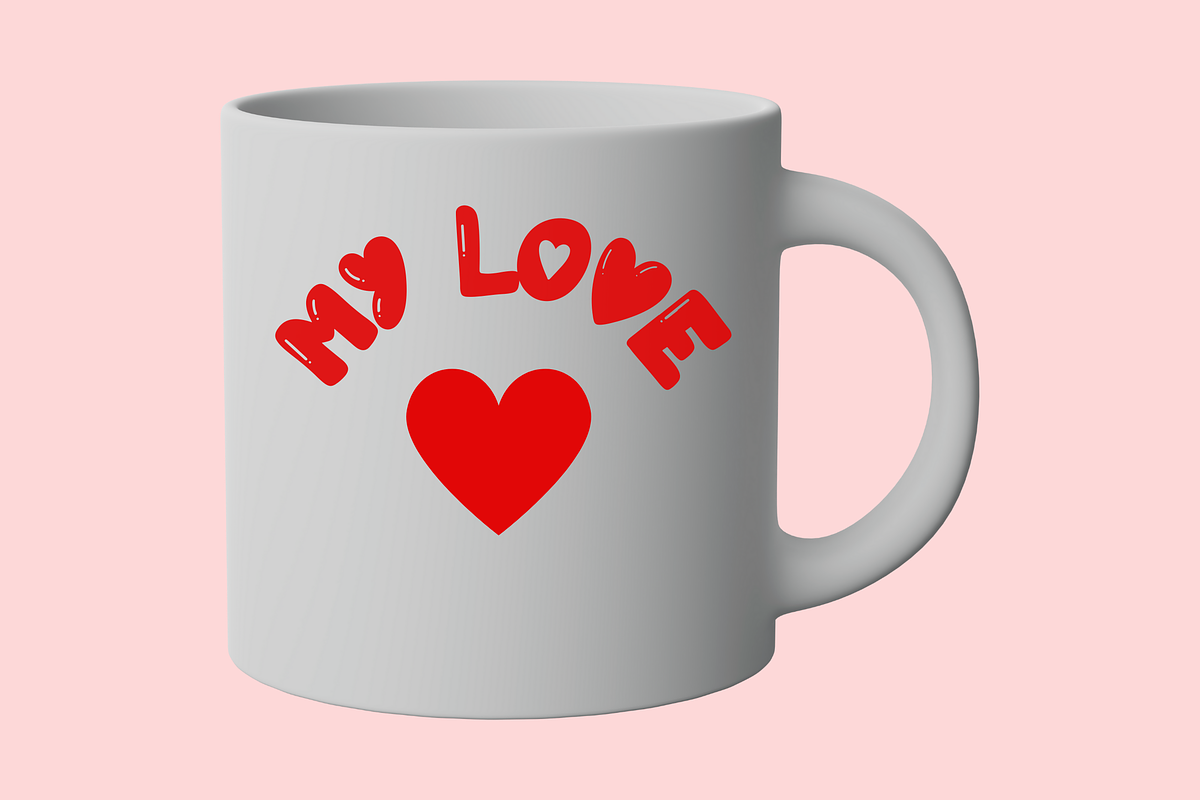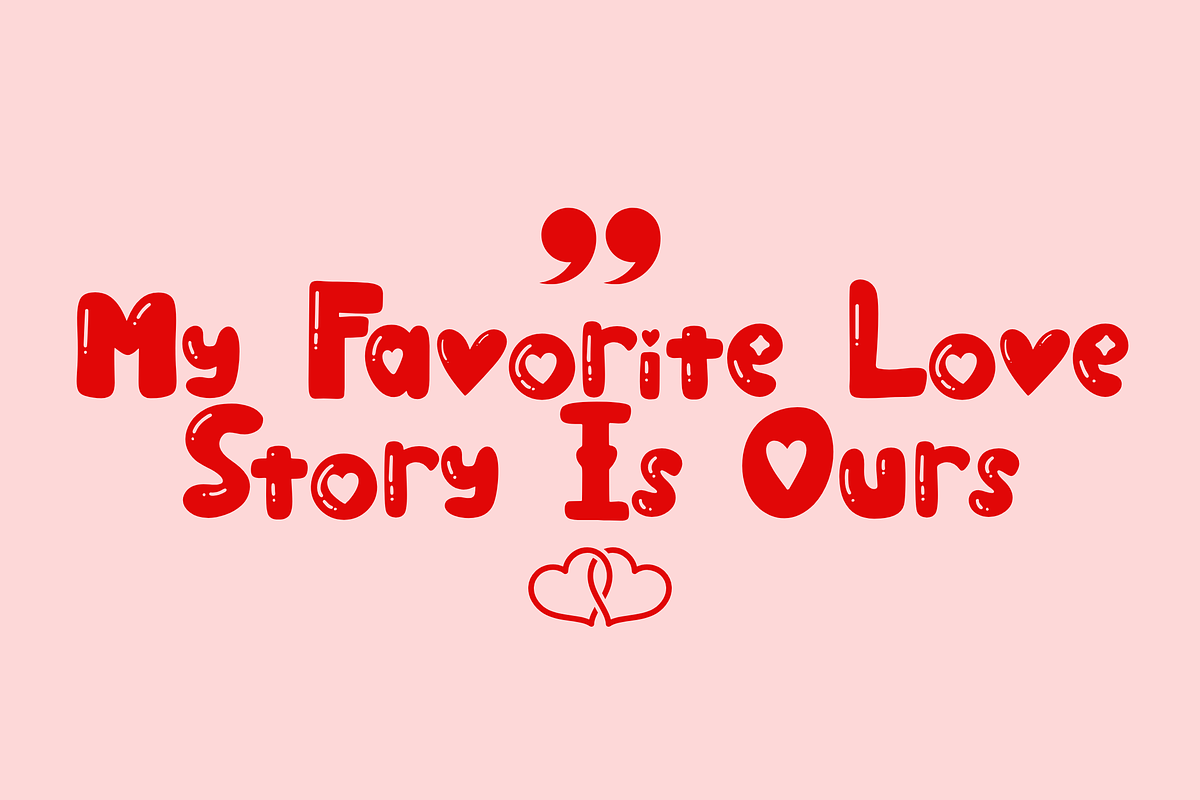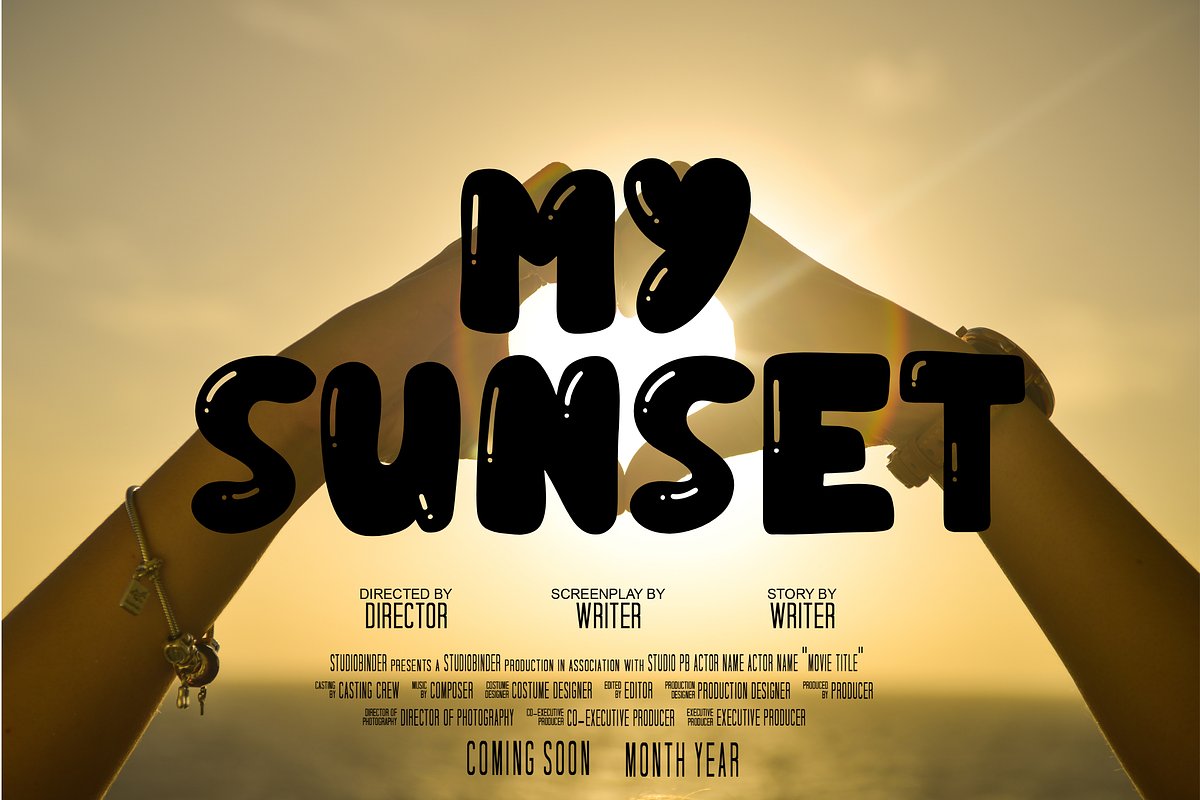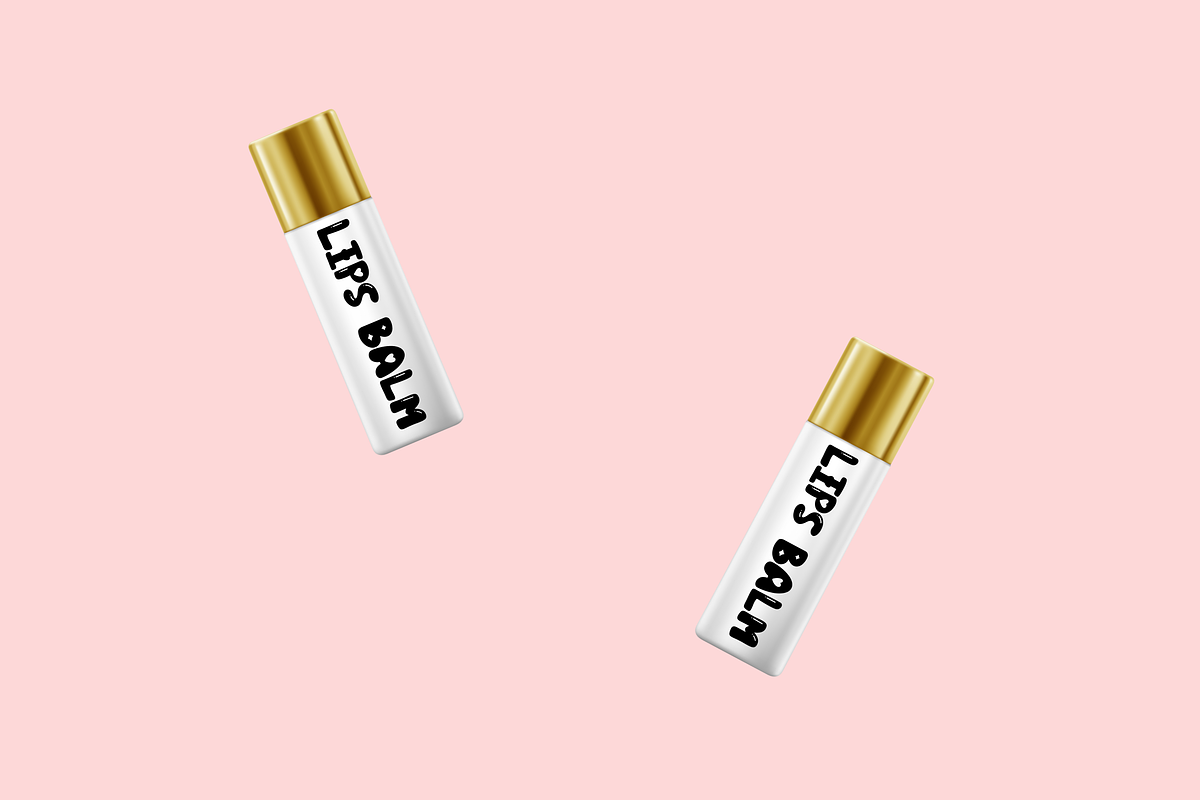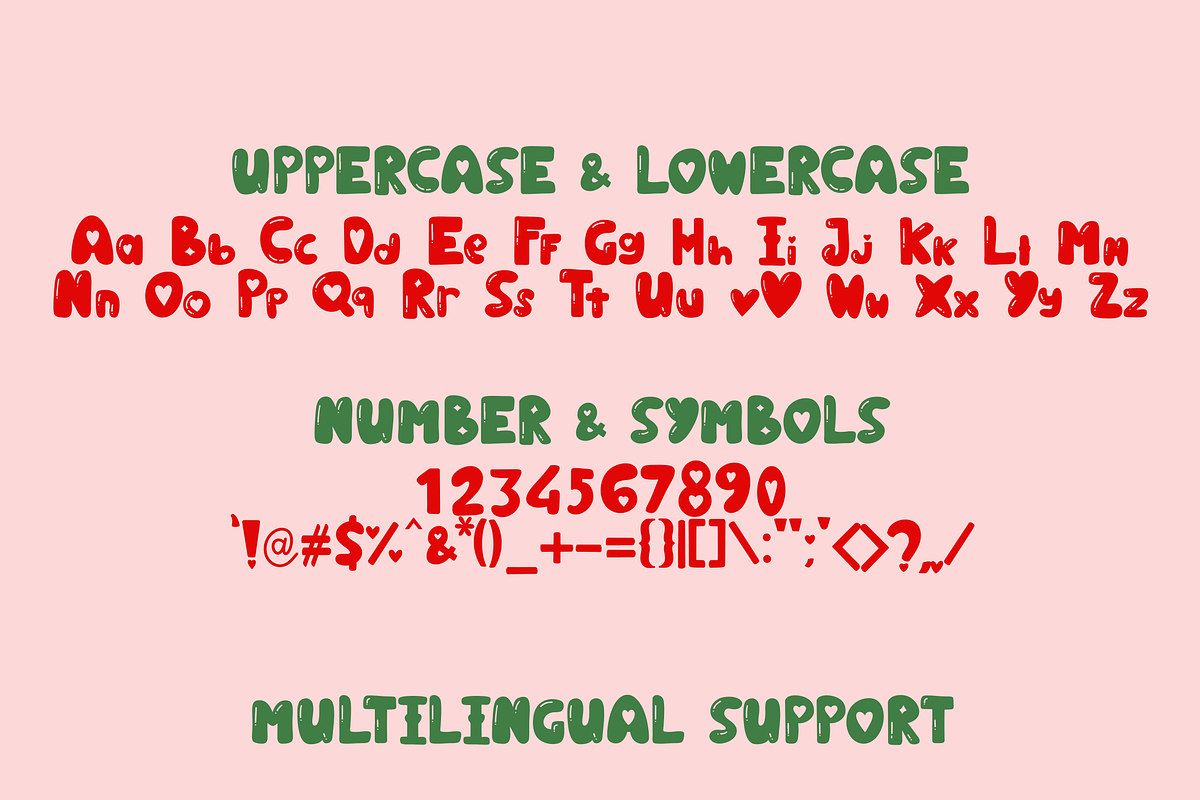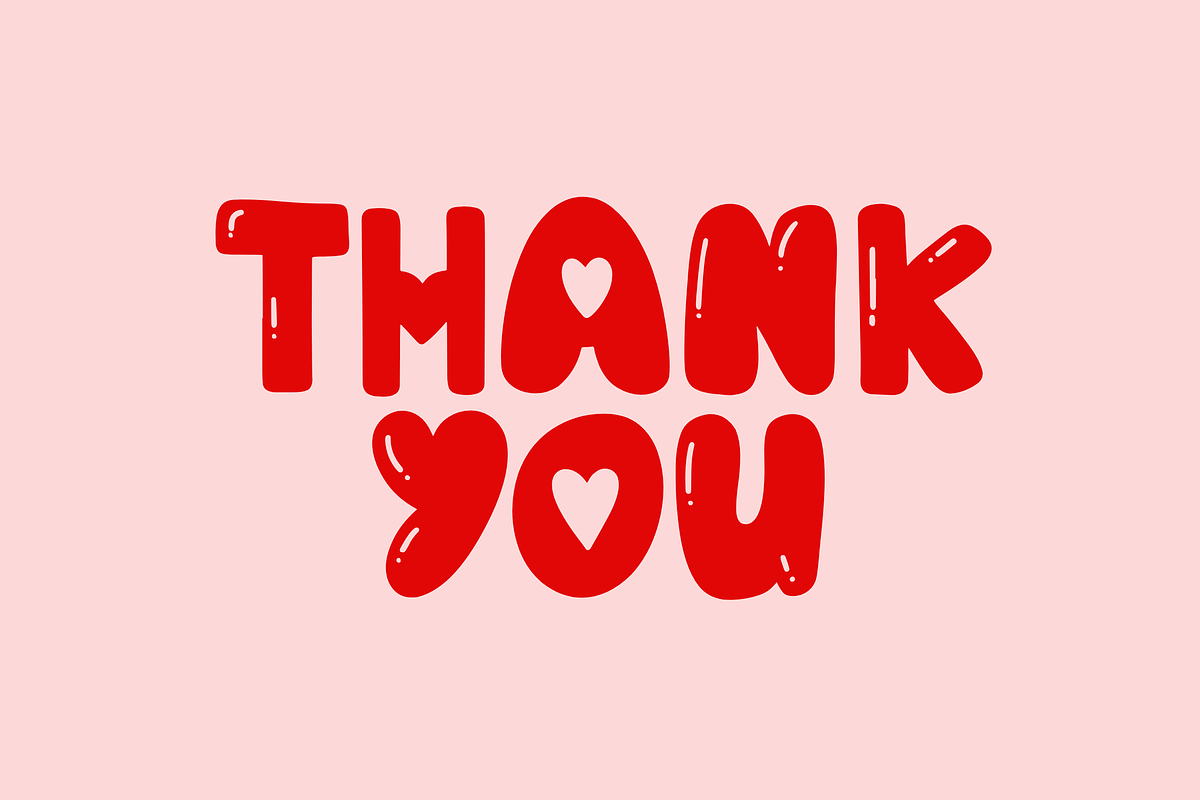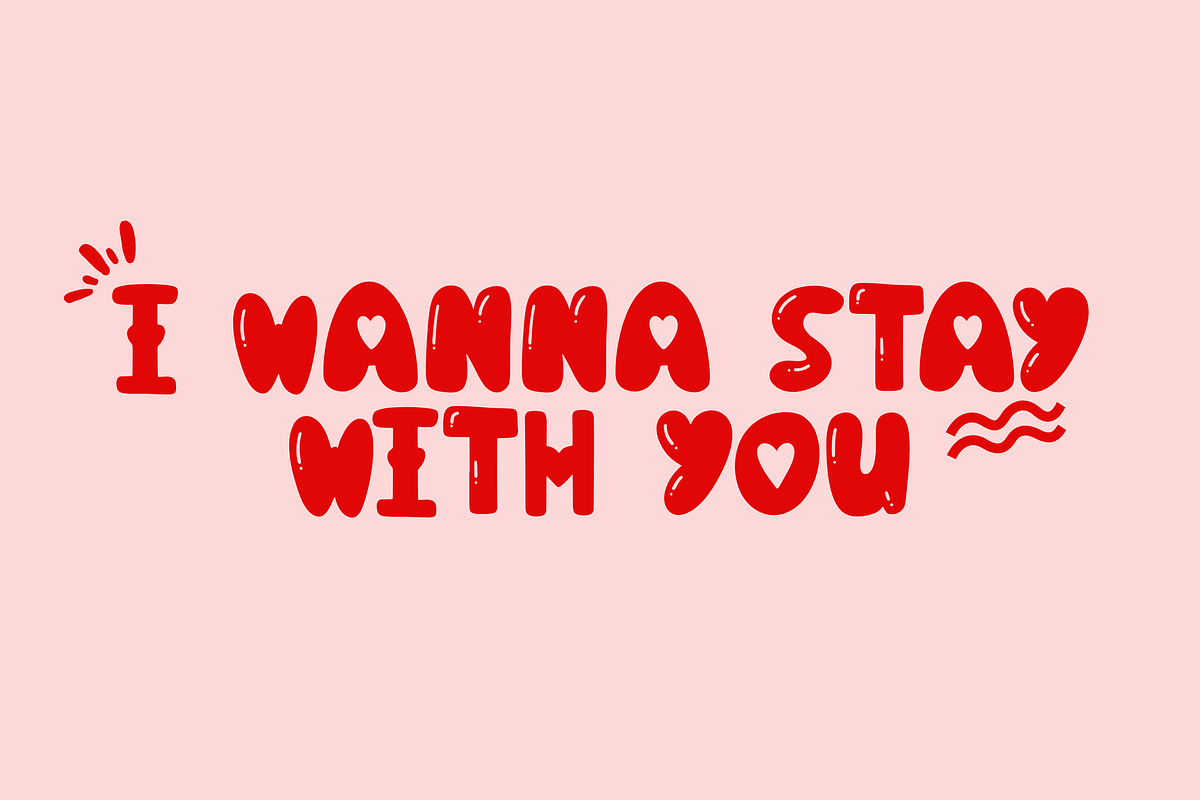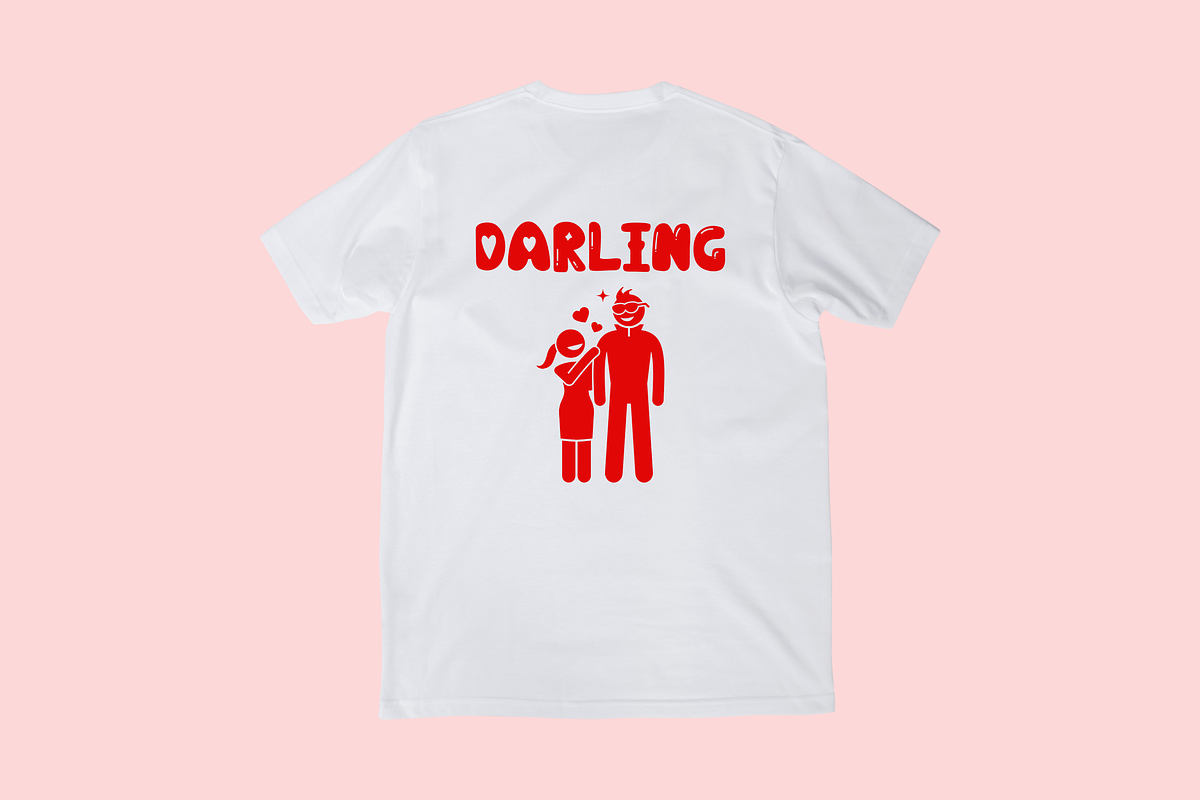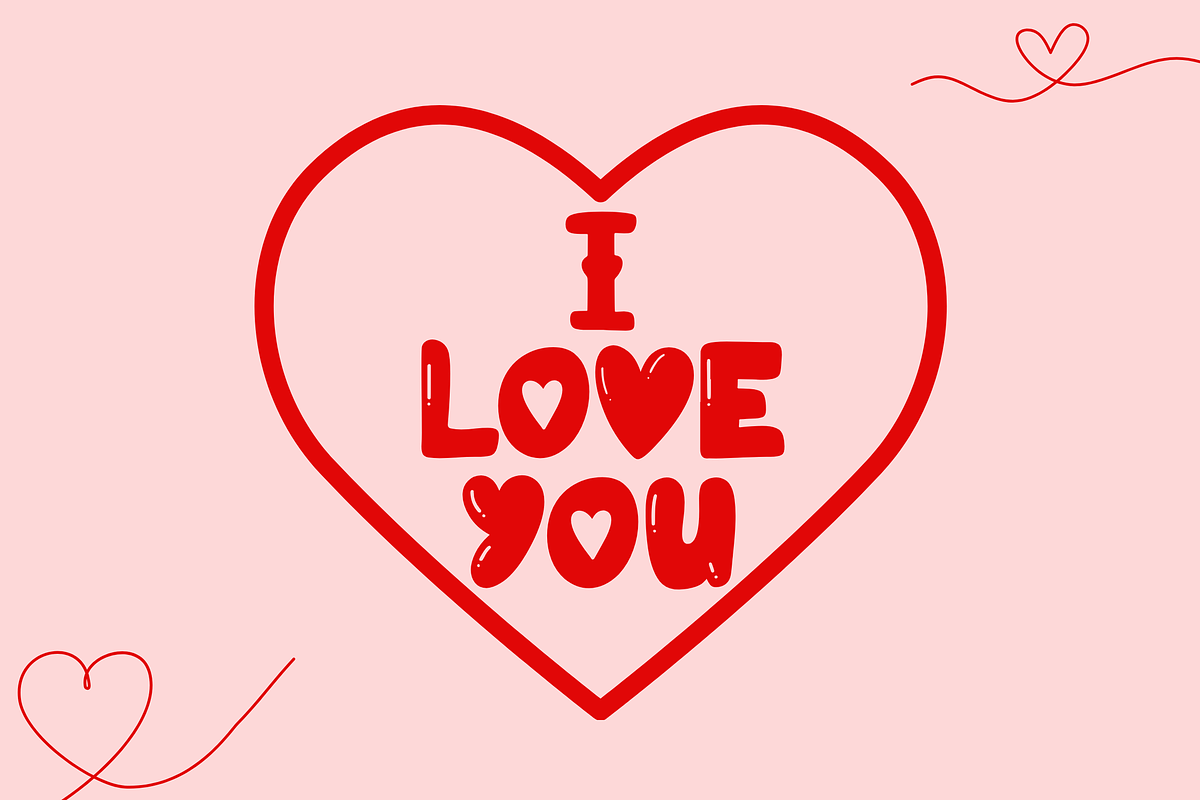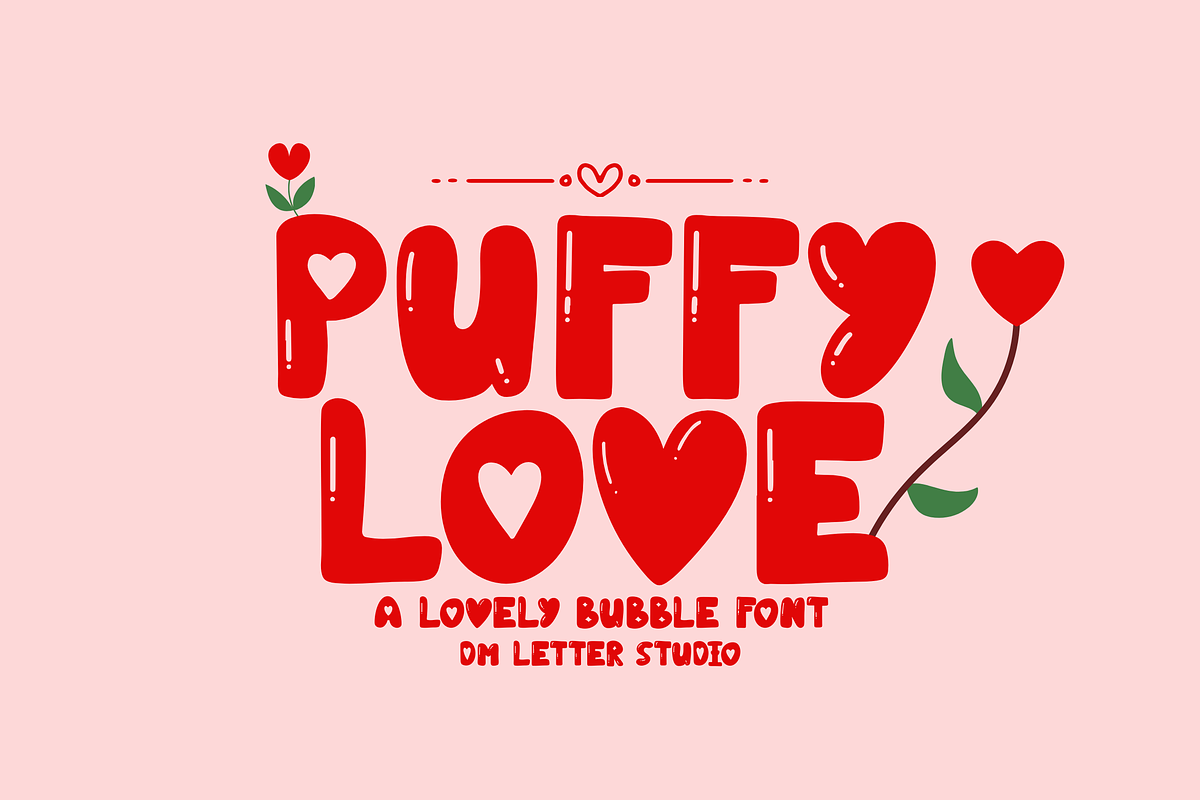
Puffy Love
Puffy Love – A Lovely Bubble Font
Description Puffy Love is a playful and charming bubble font that’s perfect for designs that need a touch of sweetness. Its rounded, puffy letters create a friendly and fun vibe, making it ideal for cards, posters, invitations, and products that celebrate love, joy, and positivity.
Numbers and punctuation
Smooth, high-quality letterforms
Valentine’s Day cards and wedding invitations
Cute branding and packaging design
Posters, greeting cards, and social media graphics
Children’s books, labels, and product designs
DIY crafts and creative projects
Design Highlights
Rounded, puffy bubble letter style
Fun, cheerful look perfect for playful themes
Bold yet friendly for both print and digital use
Adds instant charm and warmth to your designs
Puffy Love is the perfect font to bring soft, bubbly energy and a loving touch to all your creative projects.